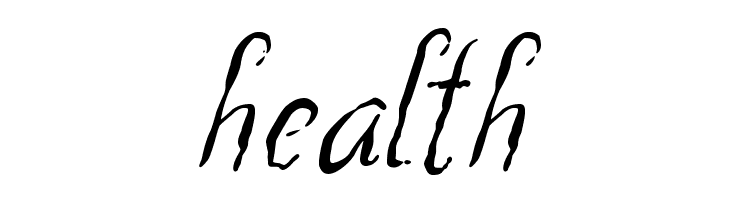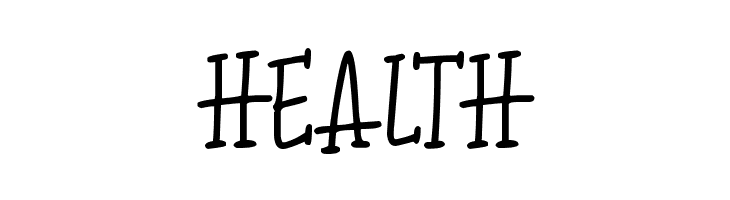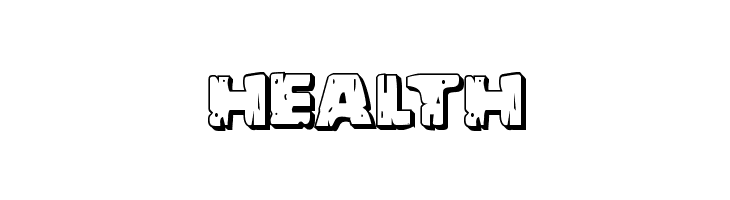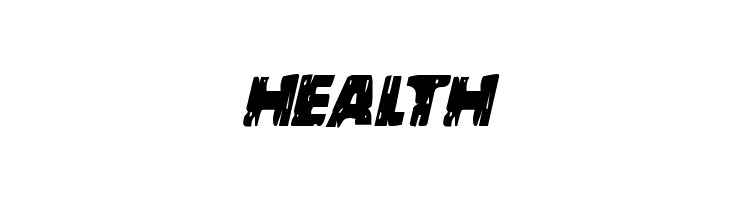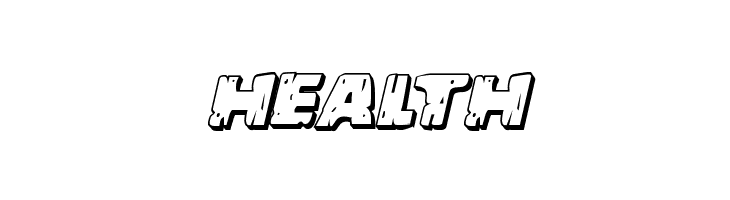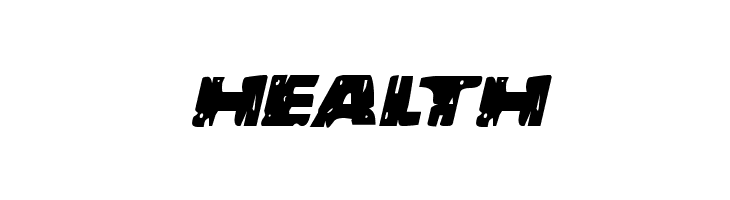
A bold, geometric font with fragmented and overlapping shapes, offering a modern and edgy look.
A flowing, cursive script font with elegant loops and swashes.
A bold, rounded font with a playful and friendly style.
A playful and bold script font with dynamic, flowing lines.
A bold, expressive script font with dynamic, interconnected characters.
A bold, expressive handwritten font with a modern and decorative style.
A dynamic, expressive handwritten font with fluid, cursive strokes.
An elegant and sophisticated script font with flowing, cursive letterforms.
A sophisticated script font with flowing, interconnected characters.
A classic serif font with elegant, sharp serifs and a sophisticated appearance.
A bold, pixelated font with a retro video game aesthetic.
An elegant italic font with sleek, elongated letterforms and high contrast strokes.
A sophisticated, high-contrast serif font with tall, narrow letterforms.
An elegant italic font with high contrast and sharp serifs, perfect for sophisticated designs.
A tall, elegant font with high contrast and sharp serifs, perfect for sophisticated designs.
A hand-drawn, whimsical font with irregular strokes and playful character.
A cursive, handwritten font with elegant and fluid strokes.
A jagged, horror-themed font with sharp, irregular strokes.
A bold, rounded font with a halftone texture, offering a modern and cohesive look.
A bold, slanted font with a dynamic and flowing script-like style.
A playful, bold, and rounded hand-drawn font with a whimsical style.
A diverse set of ornamental and symbolic pictograms in bold black silhouettes.
A bold, distressed font with a rugged, vintage aesthetic.
A bold, futuristic font with geometric and angular design elements.
A bold, angular, and futuristic font with a dynamic, slanted style.
A futuristic, geometric font with bold, angular shapes and cut-out sections.
A bold, futuristic font with geometric, angular characters and a dynamic slant.
A bold, cursive font with fluid, connected strokes and a handwritten style.
A bold, cursive font with elegant, sweeping curves and high contrast.
A bold, cursive font with dynamic curves and expressive loops.
A classic Gothic font with intricate details and bold, ornate characters.